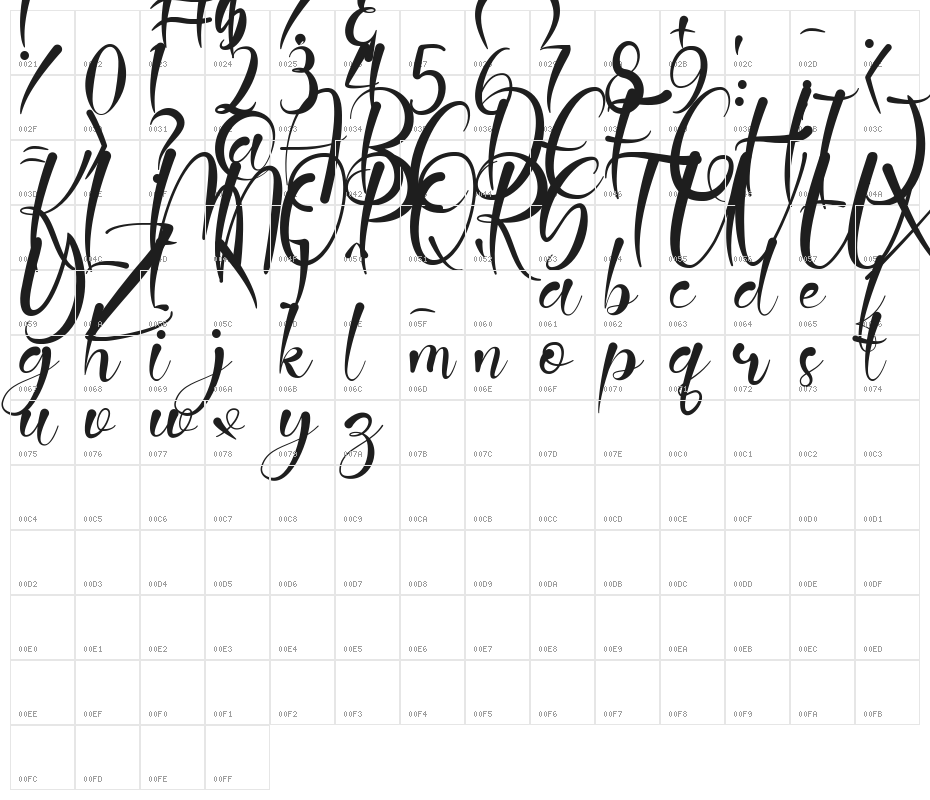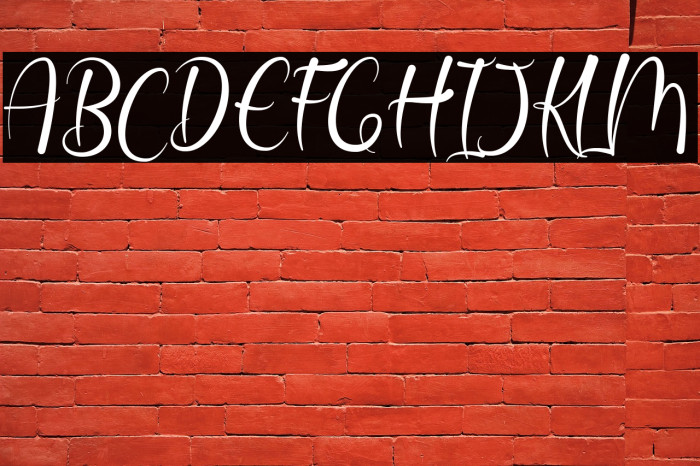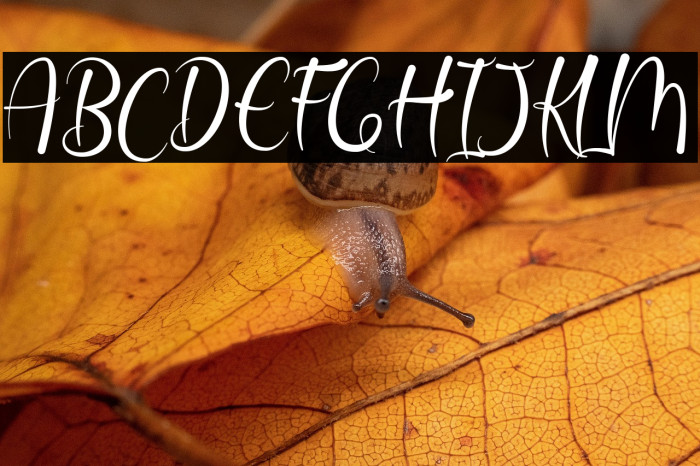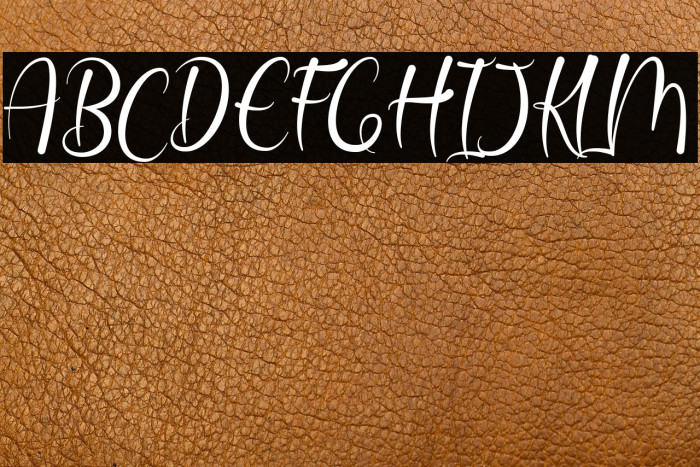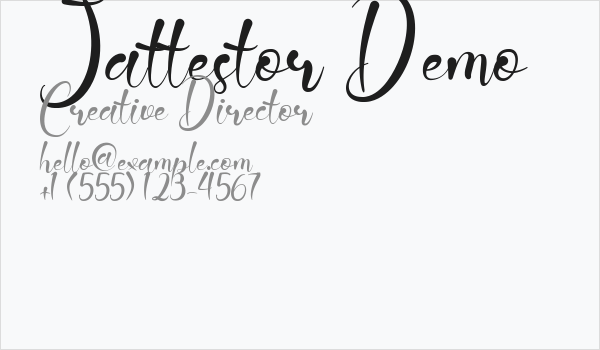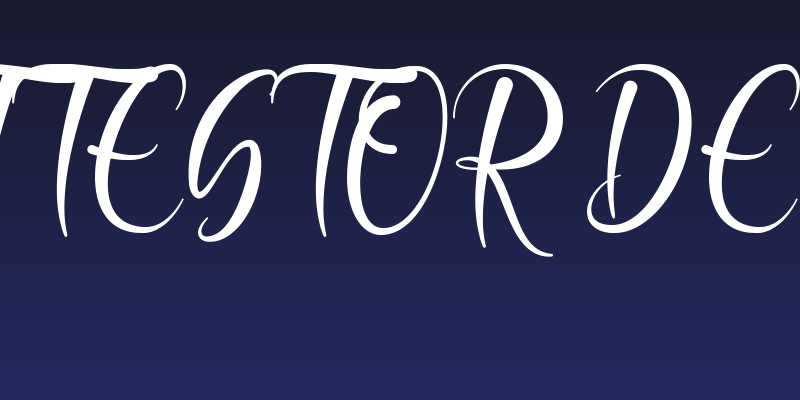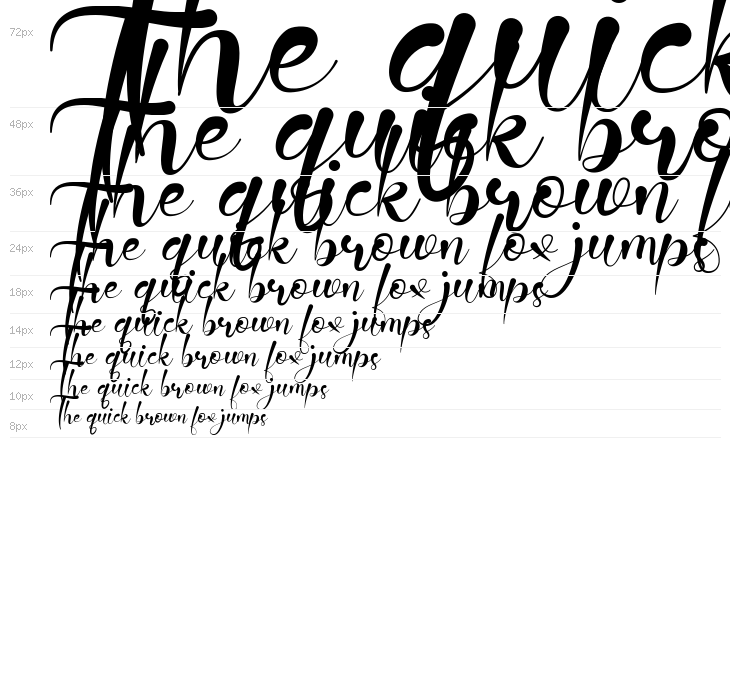
Jattestor Demo Font
Jattestor Demo Description
This font features an elegant and flowing script style, characterized by its smooth, cursive strokes and graceful loops. The uppercase letters are tall and slender, with decorative swirls that add a touch of sophistication. The lowercase letters maintain a consistent flow, enhancing the font's overall fluidity. Numbers and special characters are designed with the same attention to detail, ensuring a cohesive appearance across all elements. The font's design is both artistic and legible, making it suitable for a variety of creative applications.
| Proposed Projects | Ideal for wedding invitations, elegant branding, greeting cards, and artistic projects. |